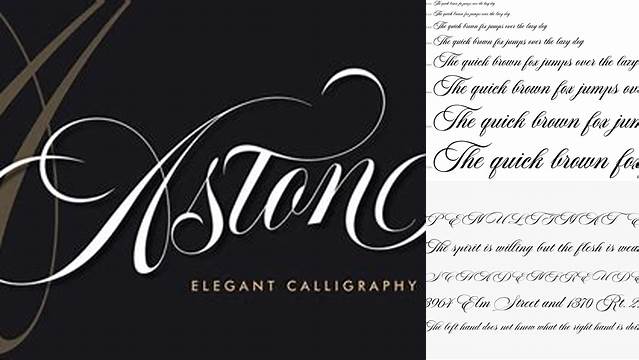
Aston Script Pro Free Font: A Complete Guide
Unveiling the Allure of Aston Script Pro Free Font
Hey design enthusiasts! Ever stumbled upon a font that just screams elegance and sophistication? Well, let me introduce you to the Aston Script Pro Free Font. This isn't just any typeface; it's a work of art, a beautifully crafted script that can transform your projects from drab to fab in an instant. Aston Script Pro is more than just a font; it's a statement. It's the perfect choice if you are looking to add a touch of class to your designs. Whether you're a seasoned designer, a budding enthusiast, or simply someone with a penchant for beautiful typography, you're in for a treat. This guide will walk you through everything you need to know about the Aston Script Pro Free Font, from its features and uses to where you can snag it (legally, of course!).
So, what makes Aston Script Pro Free Font so special? First off, it's the fluidity. The way the letters connect and flow is just mesmerizing, like a graceful dance on the page. The elegant curves and delicate strokes give it a timeless appeal, making it suitable for a wide array of design projects. Its versatility is another key factor. This font is perfect for a wide variety of design projects. Secondly, the font is packed with character. Each letter has its own unique personality, which means your designs won't look generic or run-of-the-mill. This font is perfect for various projects, including wedding invitations, branding, social media posts, and even website headers. And lastly, the font offers a wide variety of options, including different stylistic sets and ligatures. These features allow you to customize your text to make it look and feel the way you want it to.
But why is the Aston Script Pro Free Font so popular? Well, it's because of its availability and the aesthetic it provides. The font is readily available for free download, allowing designers of all skill levels and budgets to access it. This accessibility makes it a favorite for those who want to experiment with elegant typography without the financial commitment. Plus, the font's aesthetic appeal plays a significant role. The hand-lettered appearance adds a personal and authentic touch to your designs, which can leave a lasting impression on your audience. The carefully designed curves and details offer a sense of artistry and expertise, enhancing the overall visual appeal of your projects. The font’s popularity also stems from its ability to blend seamlessly with other design elements, allowing designers to create visually appealing compositions.
Maximizing the Potential of Aston Script Pro Free Font in Your Designs
Now, let's dive into how you can truly unleash the potential of the Aston Script Pro Free Font in your projects. One of the best ways to use this font is for branding and logo design. The script's elegance and sophistication make it perfect for creating logos that exude class and style. It's ideal for brands targeting a more sophisticated audience, such as luxury brands, wedding planners, or boutiques. The unique curves and features of each letter give your brand a distinguished look, setting it apart from the competition. In addition to branding, Aston Script Pro Free Font can also be used to create eye-catching social media graphics. Use the font for quote cards, announcements, or to create headings for your posts. This font can make your social media profiles stand out from the crowd. The font’s visual appeal is perfect for capturing attention in a fast-paced environment. The font's versatility allows you to pair it with various images and design elements, helping you create stunning visuals that capture your audience's interest.
Another great application of the font is in invitations and stationery. Its elegant script is perfect for designing wedding invitations, save-the-dates, greeting cards, and more. The font adds a touch of personality and charm to your communications, enhancing the overall experience. The design of your invitations creates a positive impression on your guests, leaving a lasting impact. You can also experiment with different font sizes and colors to achieve a personalized and unique look that aligns with your specific requirements. Moreover, the font can be used for website headers and titles, giving your website a polished and sophisticated look. Use it for headings, call-to-action buttons, or any element that needs to stand out. This font can provide a visually appealing and attention-grabbing look for your site. Incorporating the Aston Script Pro font into your website improves user engagement and leaves a lasting impression on visitors. Remember to consider the context of your design and test various features to get the best possible outcome.
Another common issue is readability. While the Aston Script Pro Free Font is beautiful, it can sometimes be a bit tricky to read, especially in smaller sizes. This is why it is best used for headlines or short phrases, instead of body text. If you're using it for longer text, ensure you use a good size and contrast to maximize readability. Try experimenting with different colors and backgrounds to make the text stand out. Also, be careful about using it in all caps, as it can be hard to read and can make it look cluttered. When experimenting with different designs, it is also crucial to keep in mind kerning and spacing. Kerning is the space between two specific letters, while tracking is the spacing between all letters. Adjusting these can improve the overall legibility of your text, and ensure your design looks balanced and professional. Make sure you understand the font's licenses. This determines how you can legally use it. Always check the license before using the font for commercial purposes. You can usually find this information in the font files or on the website where you downloaded it.
Conclusion: Embrace the Elegance of Aston Script Pro Free Font
So there you have it, folks! The Aston Script Pro Free Font is a fantastic font that can elevate your designs to a new level. From its graceful curves to its versatility, it's a true design asset. Whether you're a seasoned pro or just starting, this font is a great addition to your font library. Remember to download it from a reliable source, install it correctly, and play around with its features to get the best results. So go forth, create, and let the Aston Script Pro Free Font work its magic! Happy designing!